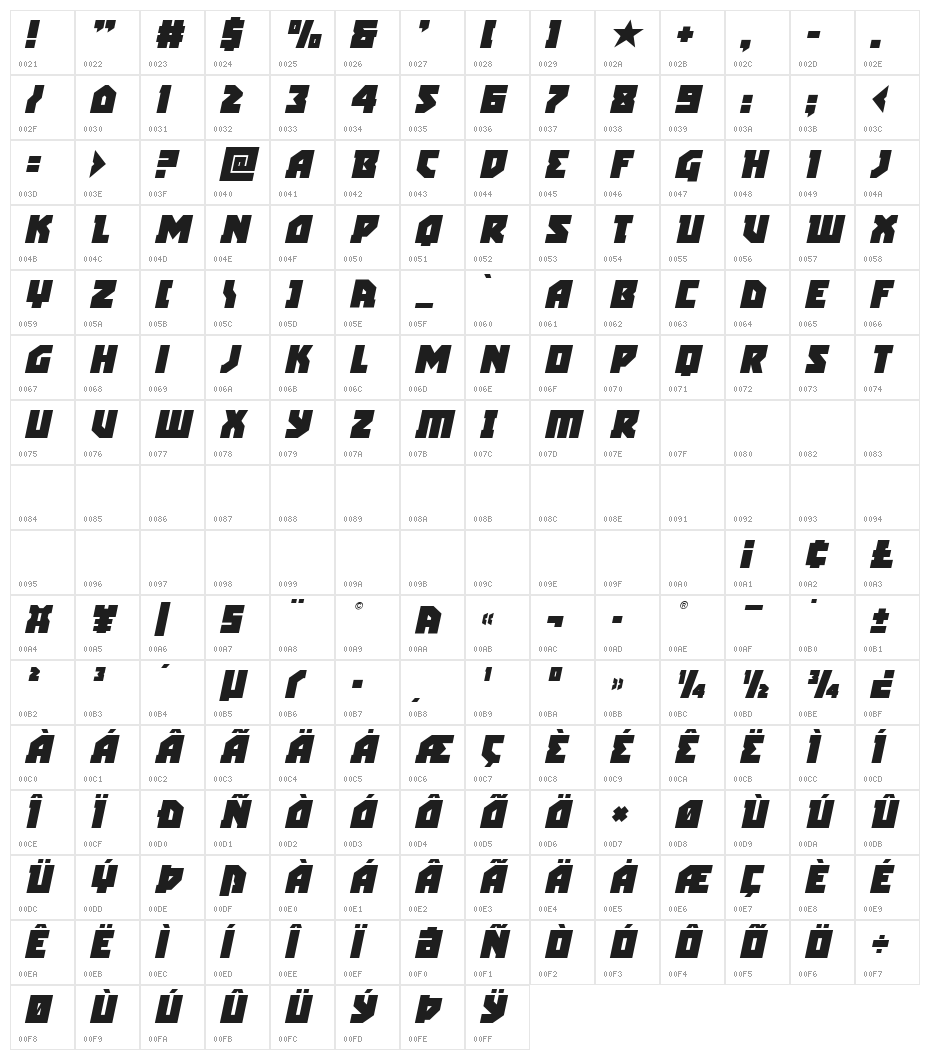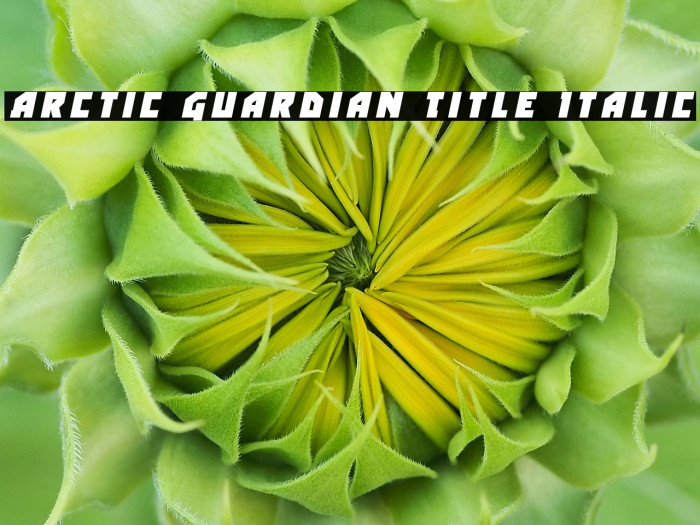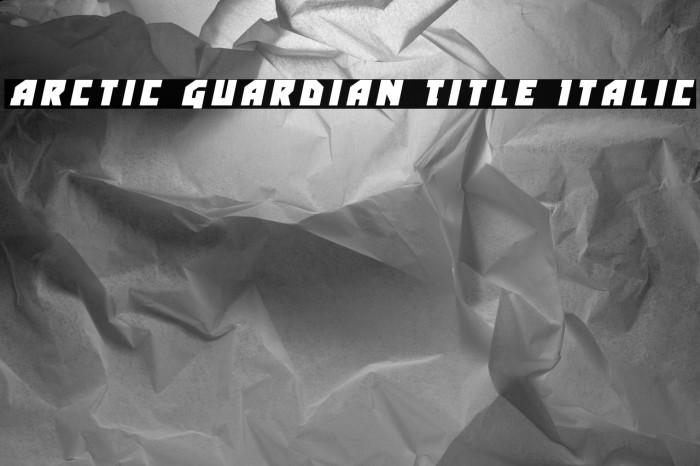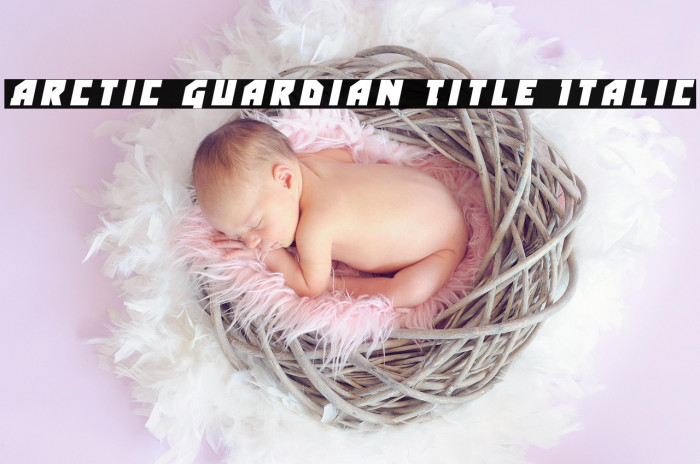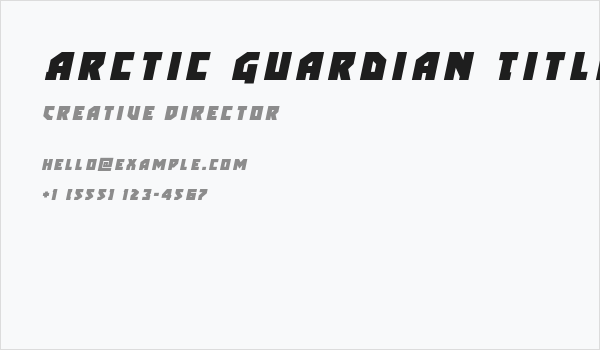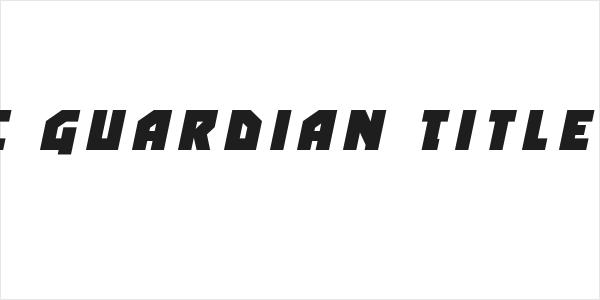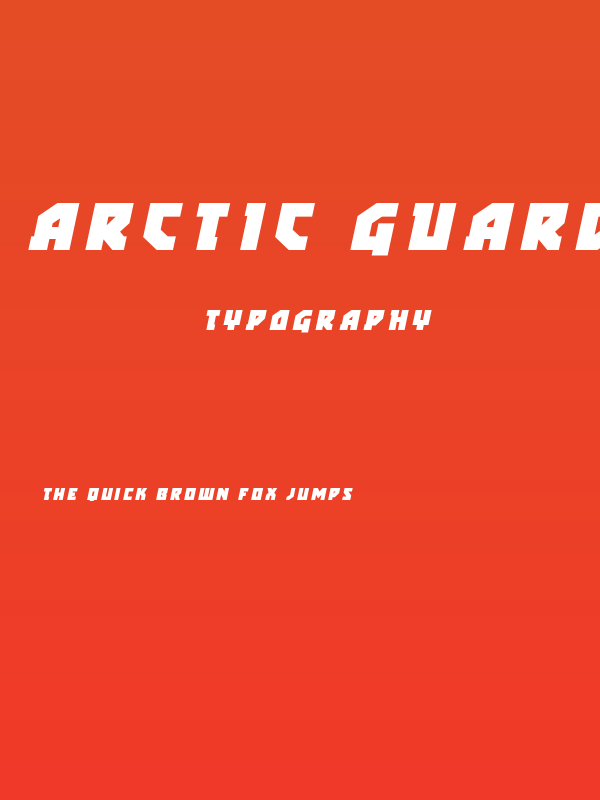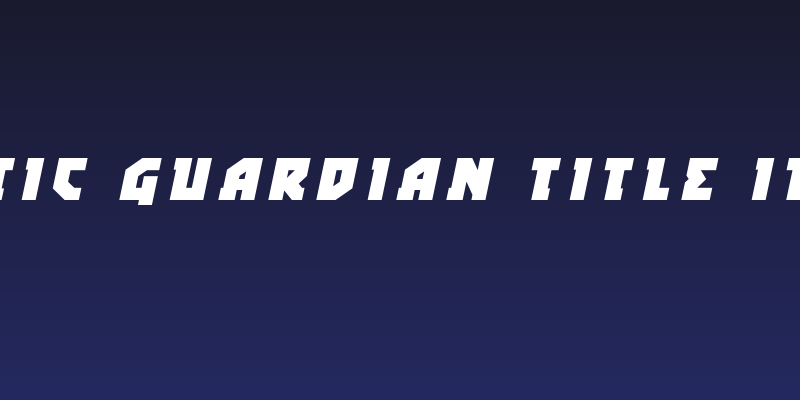
Arctic Guardian Title Italic Font
Arctic Guardian Title Italic Description
This bold and dynamic font features a strong geometric design with sharp angles and a distinct italic slant. The uppercase and lowercase letters maintain a consistent style, characterized by their blocky, angular shapes that convey a sense of strength and movement. The numbers and special characters follow the same design principles, ensuring uniformity across all glyphs. The font's boldness and unique style make it stand out, while the italic slant adds a touch of dynamism and forward motion. This font is ideal for projects that require a strong visual impact, such as titles, headlines, and branding materials.